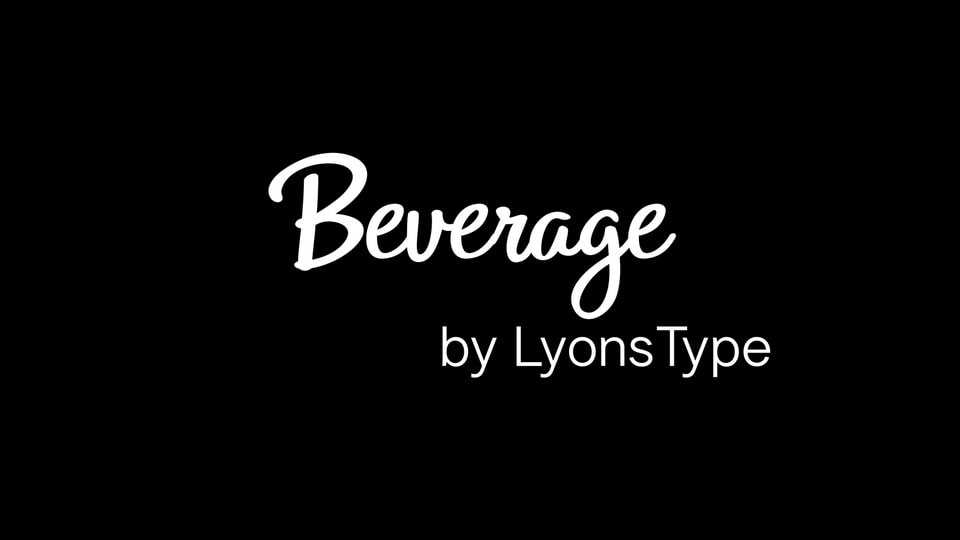
Download LT Beverage font, a delightful script typeface that infuses your designs with boundless happiness and energy. LT Beverage font captures the essence of joy, making it perfect for projects that aim to spread positivity and cheer.
Designer: LyonsType